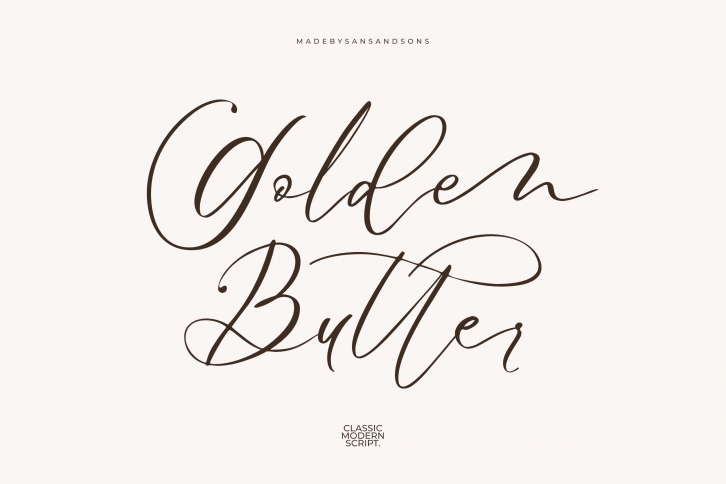
Golden Butter - Modern Elegant Script Font by Sans and Sons
introducing our new "Golden Butter" Modern Calligraphy Script with Elegant Lovely Style is perfect for branding, logos, invitation, master heads, and more.
Golden Butter Features :
- Alternates